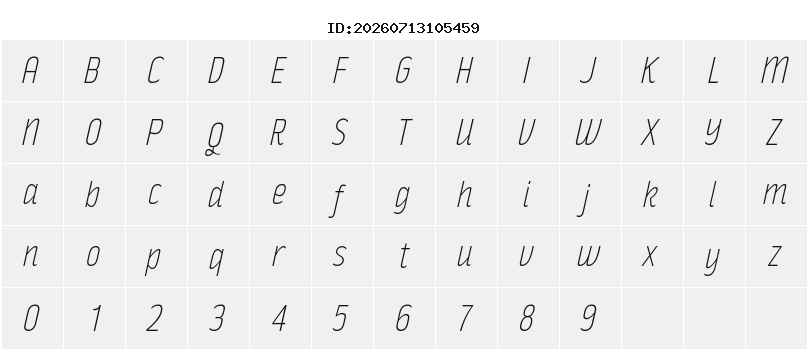
Rakesly El Preview
• Font Name: Rakesly El
• Designer: Ray Larabie
• Manufacturer: Ray Larabie
About Rakesly El.ttf
Rakesly El.ttf is a modern, elegant sans-serif font designed for ultimate readability and visual harmony. Perfect for branding, headlines, web design, and print materials.